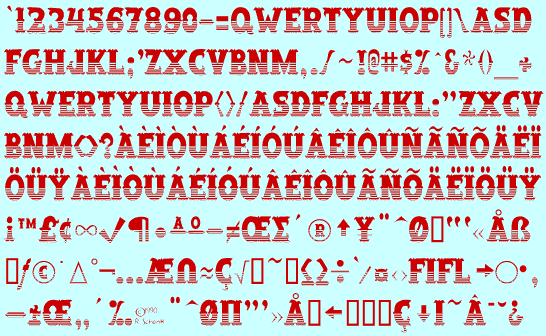
SallonStripeBottom
This is still another variation on Salloon. It was completed before the first version of the No-Hype Type CD, but not included with the main collection.